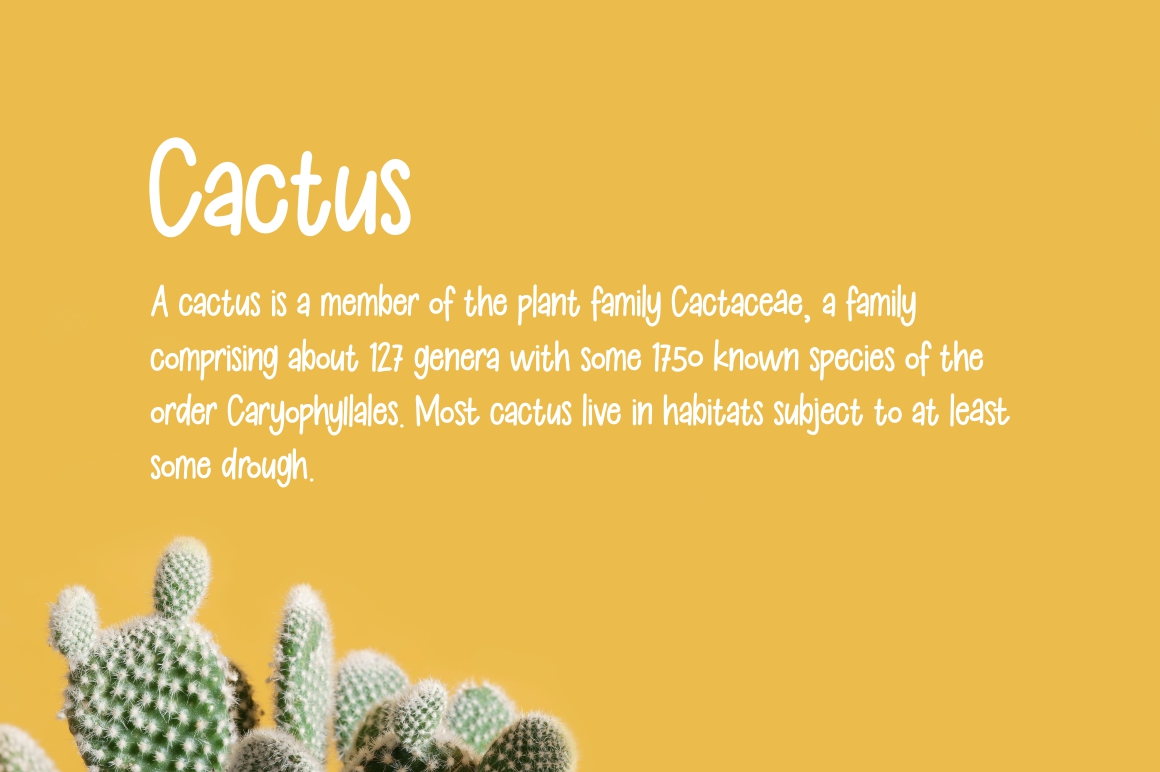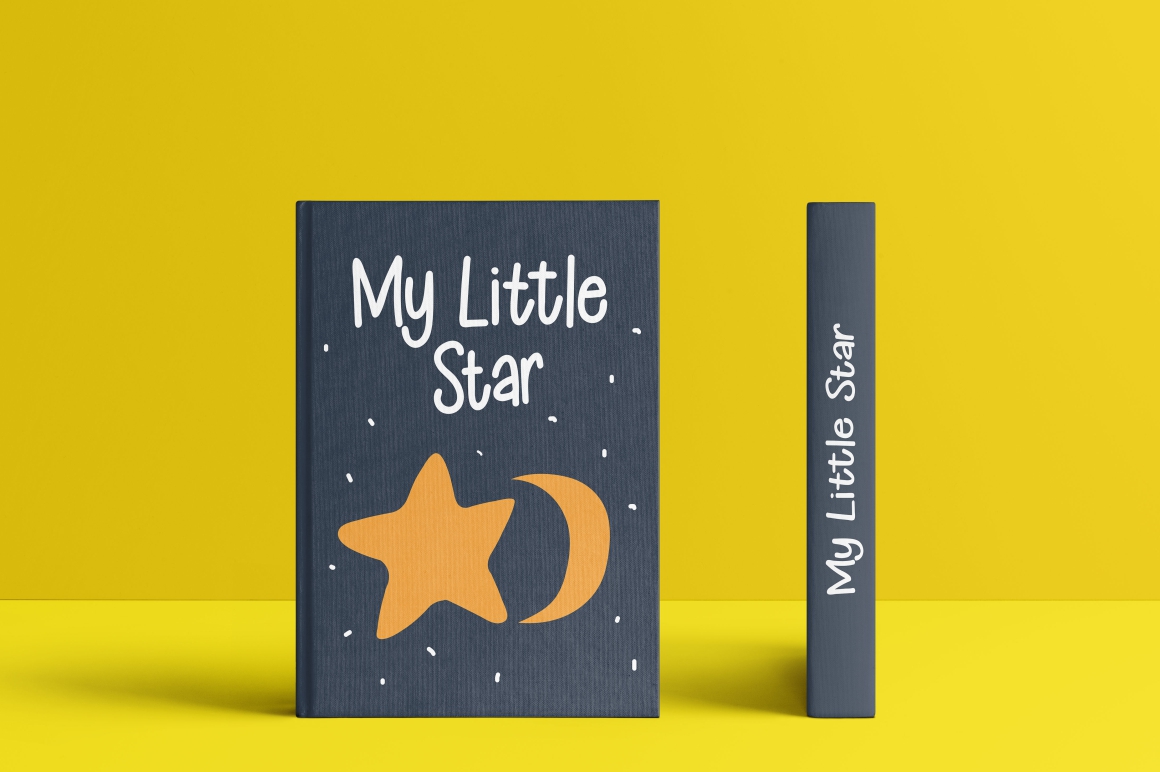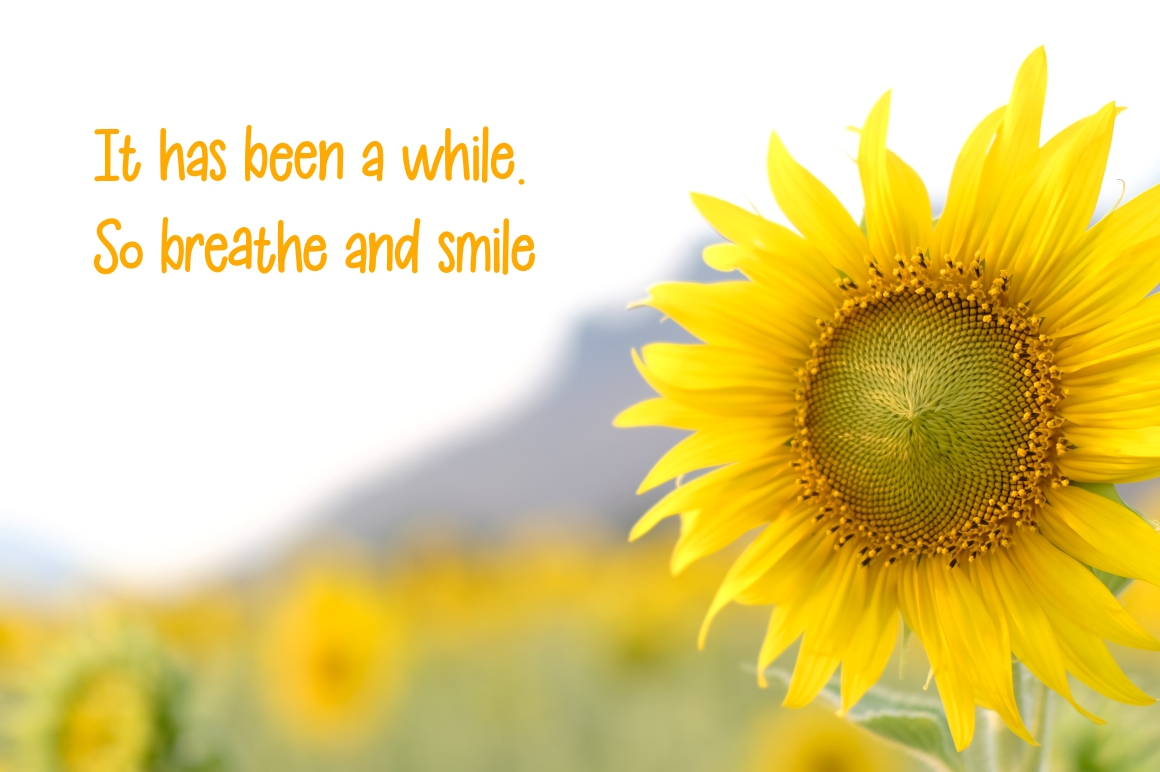
Introducing Kids Note. A new handwritten font for big kids. Hand drawn letters in one simple weight. So sweet and lovely.
Kids Note includes full set of charming uppercase and lowercase international letters, numerals, a large range of punctuation and ligatures. All lowercase letters include beginning and ending swashes. It’s perfect choice for stylish branding & logo projects, product packaging, handwritten quotes, editorial design invites, greetings and so much more!
Ligatures